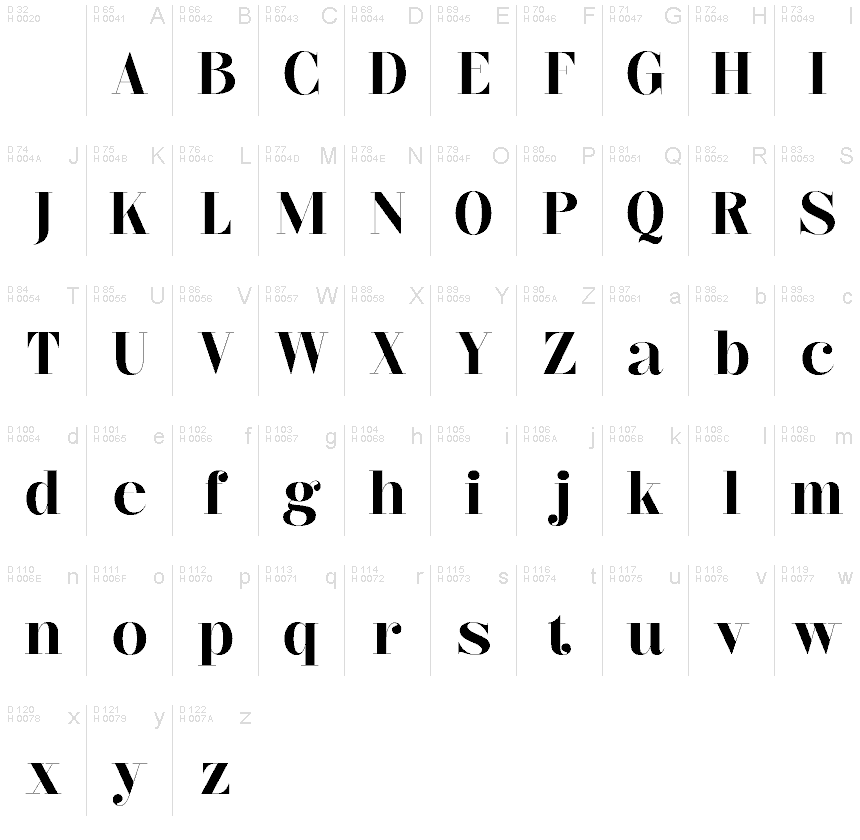
CS Nolan Demo Regular
CS Nolan font, designed by Craft Supply Co., is a bold geometric serif that combines modern elegance with sophistication. This versatile font carries an upscale professional sentiment for users who want to leave lasting impressions with their designs. It’s equally perfect for branding, headlines and medium-length paragraphs.